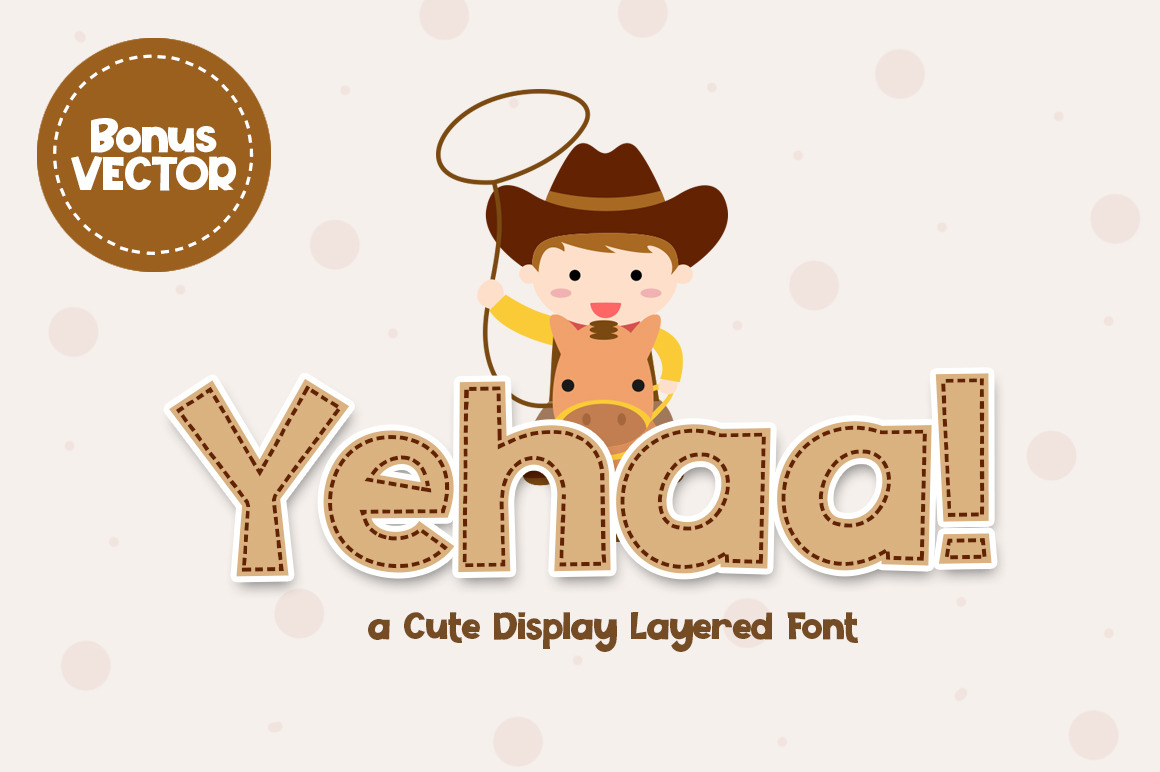
Yehaa! Layered Font
Yehaa! font a display layered typeface and awesome character with 3 different style, regular, solid and liner. Yehaa! font support multilanguage & used with layers method. Yehaa! font it’s perfect for namecard, poster, logo, magazine, cover, banner, tshirt and headers, or even large-scale artwork.